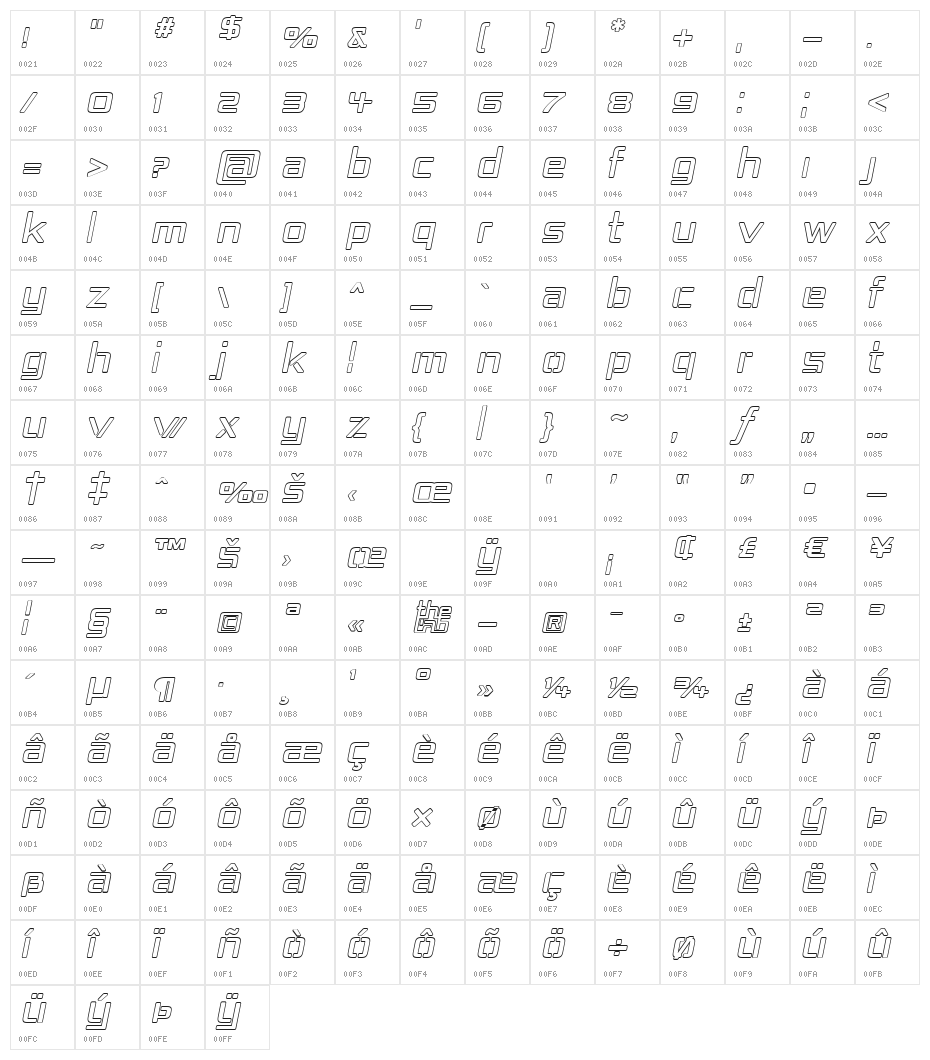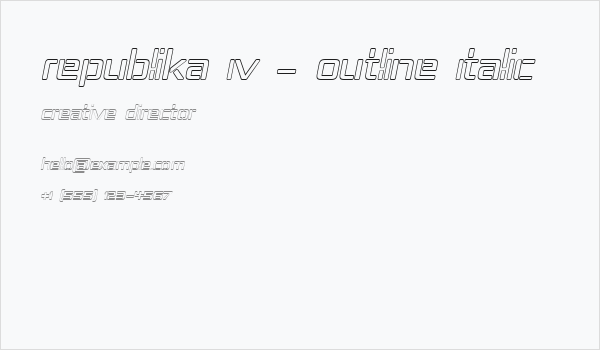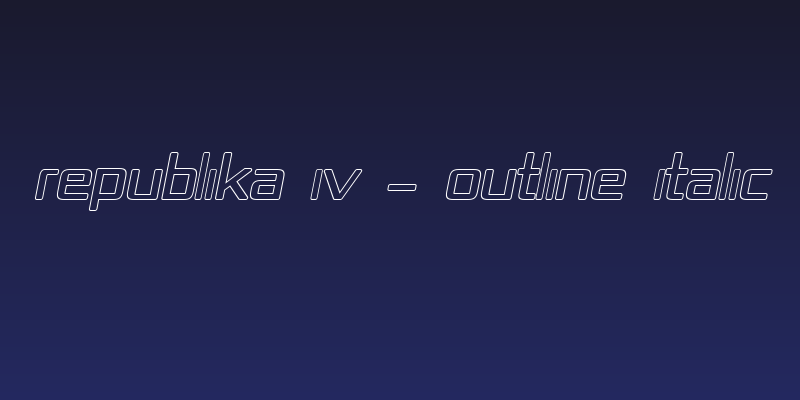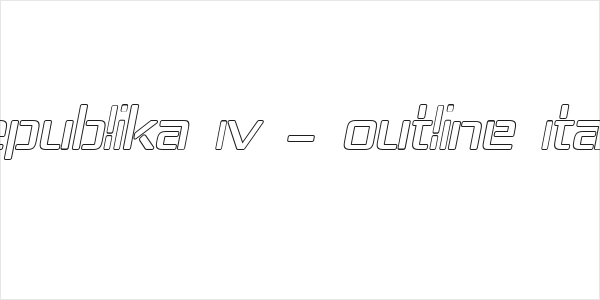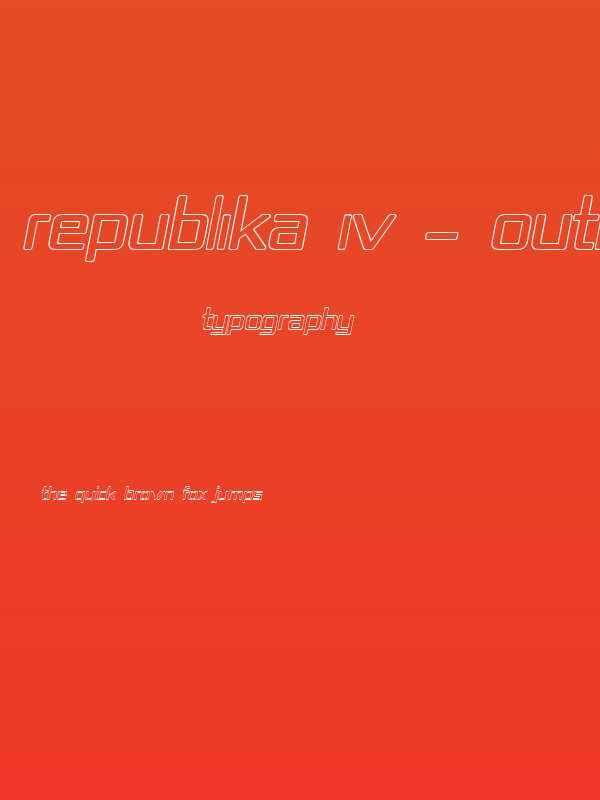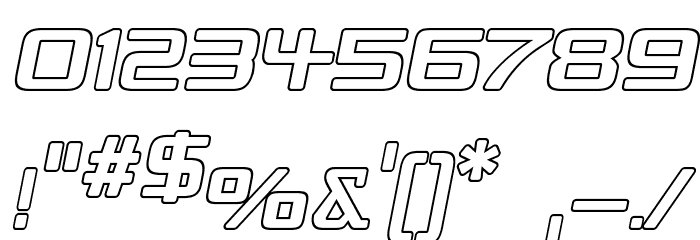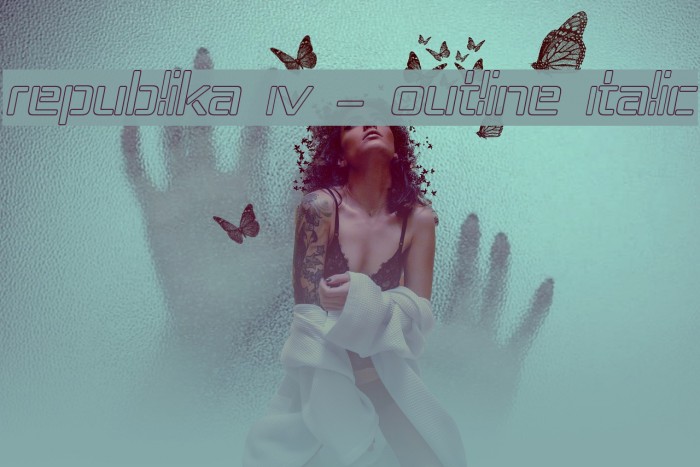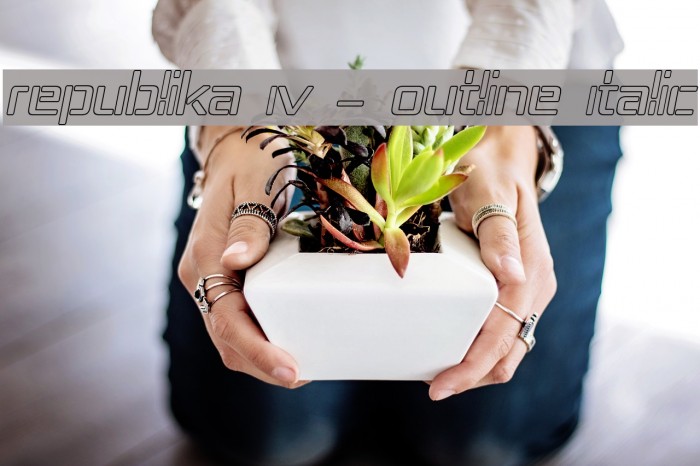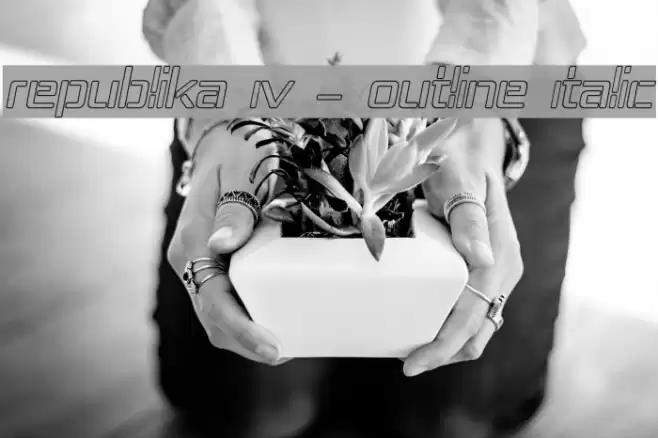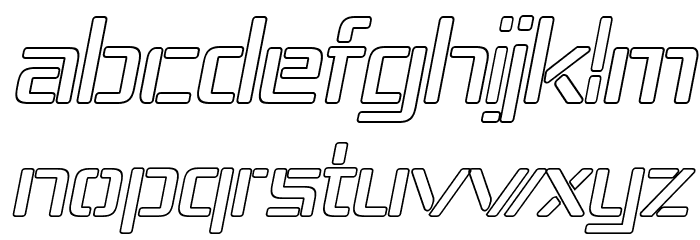
Republika IV - Outline Italic Font
Republika IV - Outline Italic Description
This font features a modern, geometric design with an outline style that gives it a unique, futuristic appearance. The italic slant adds a dynamic feel, while the consistent stroke width maintains a clean and structured look. Each character is crafted with precision, emphasizing sharp angles and straight lines, which contribute to its technical and contemporary aesthetic. The font's outline nature allows for creative layering and color usage in design projects, making it versatile for various applications. Its distinct style is suitable for projects that require a bold statement, such as technology branding, innovative product packaging, or eye-catching headlines.
| Proposed Projects | Ideal for technology branding, product packaging, and innovative headlines. |